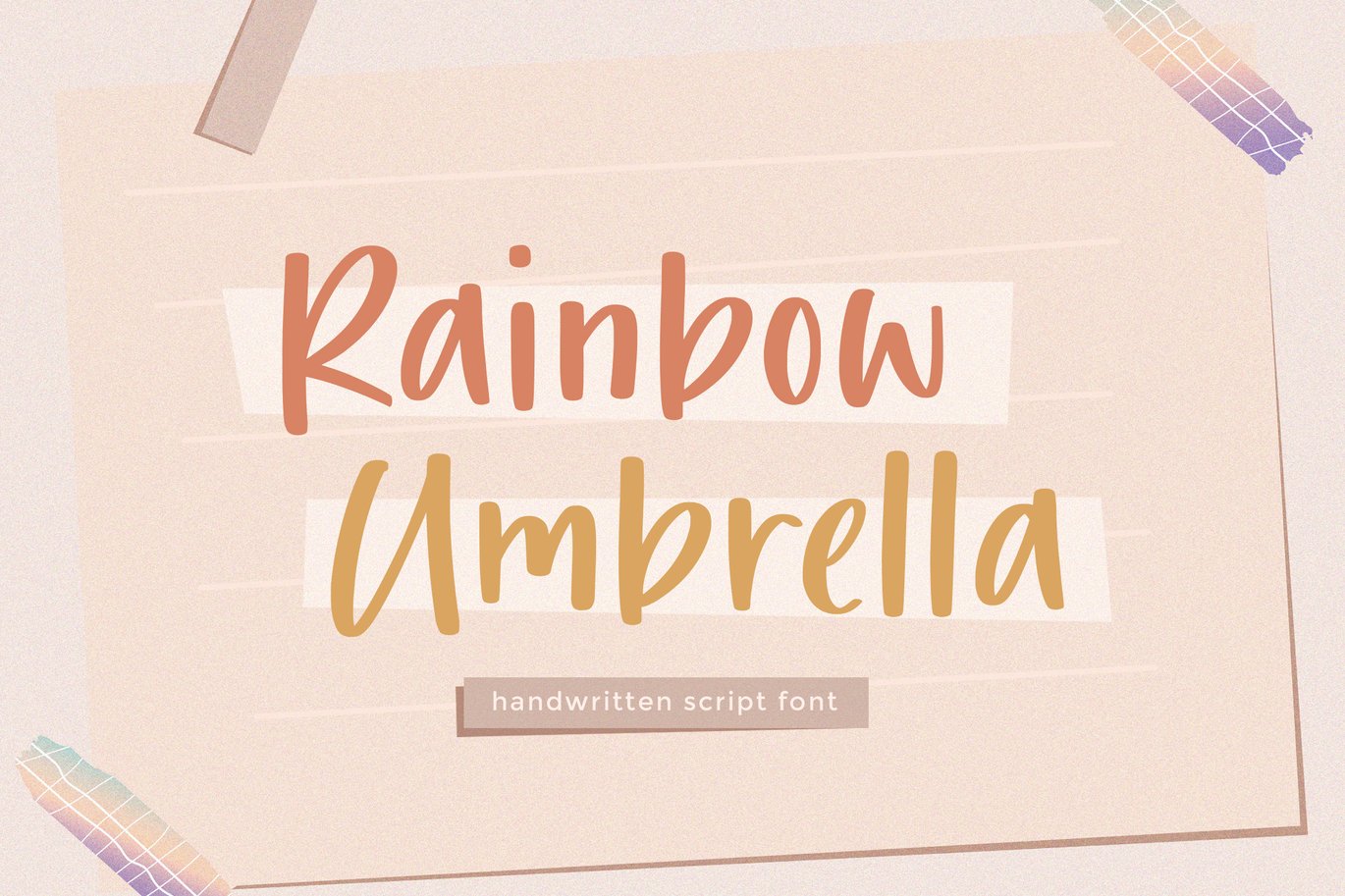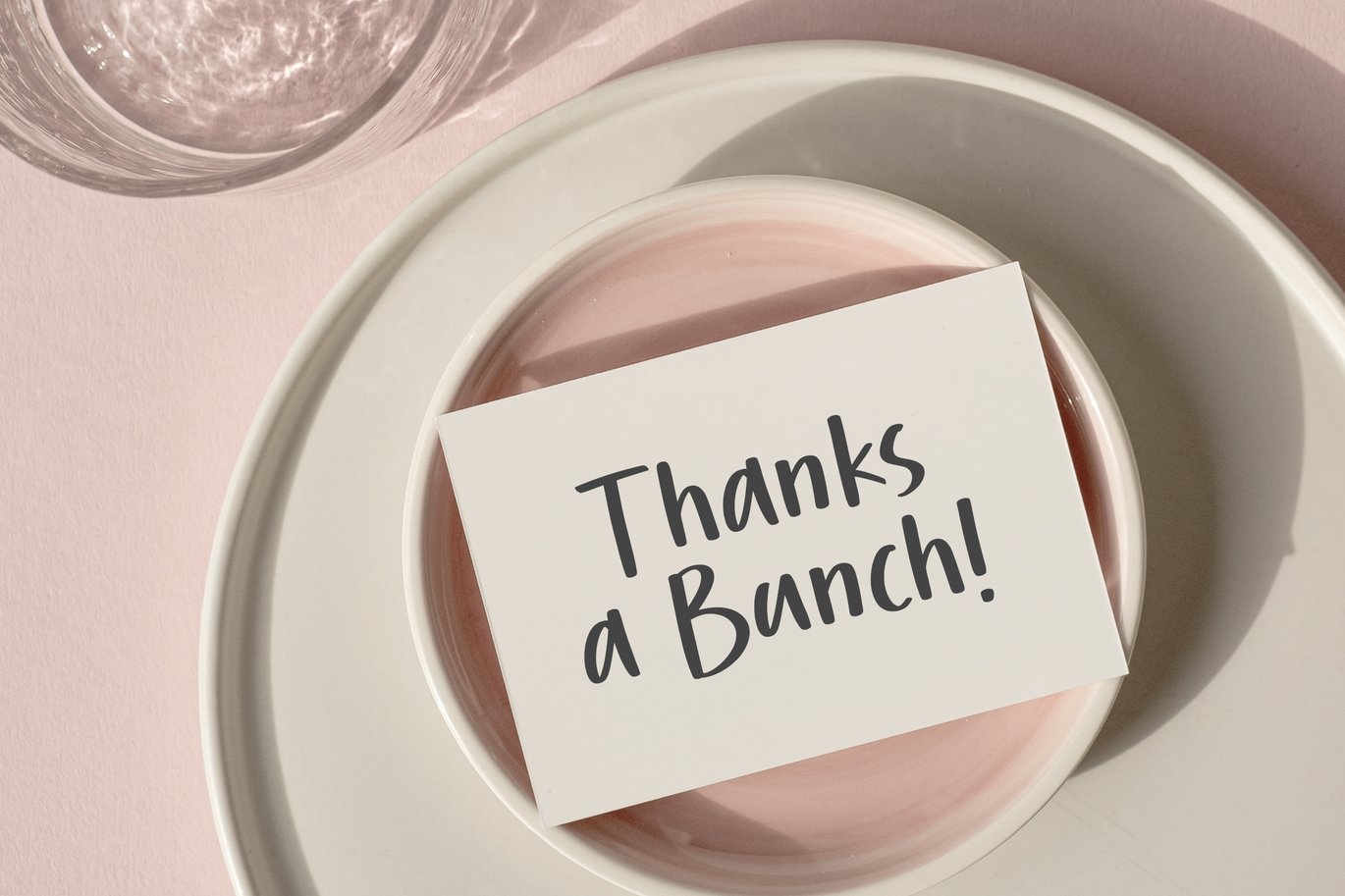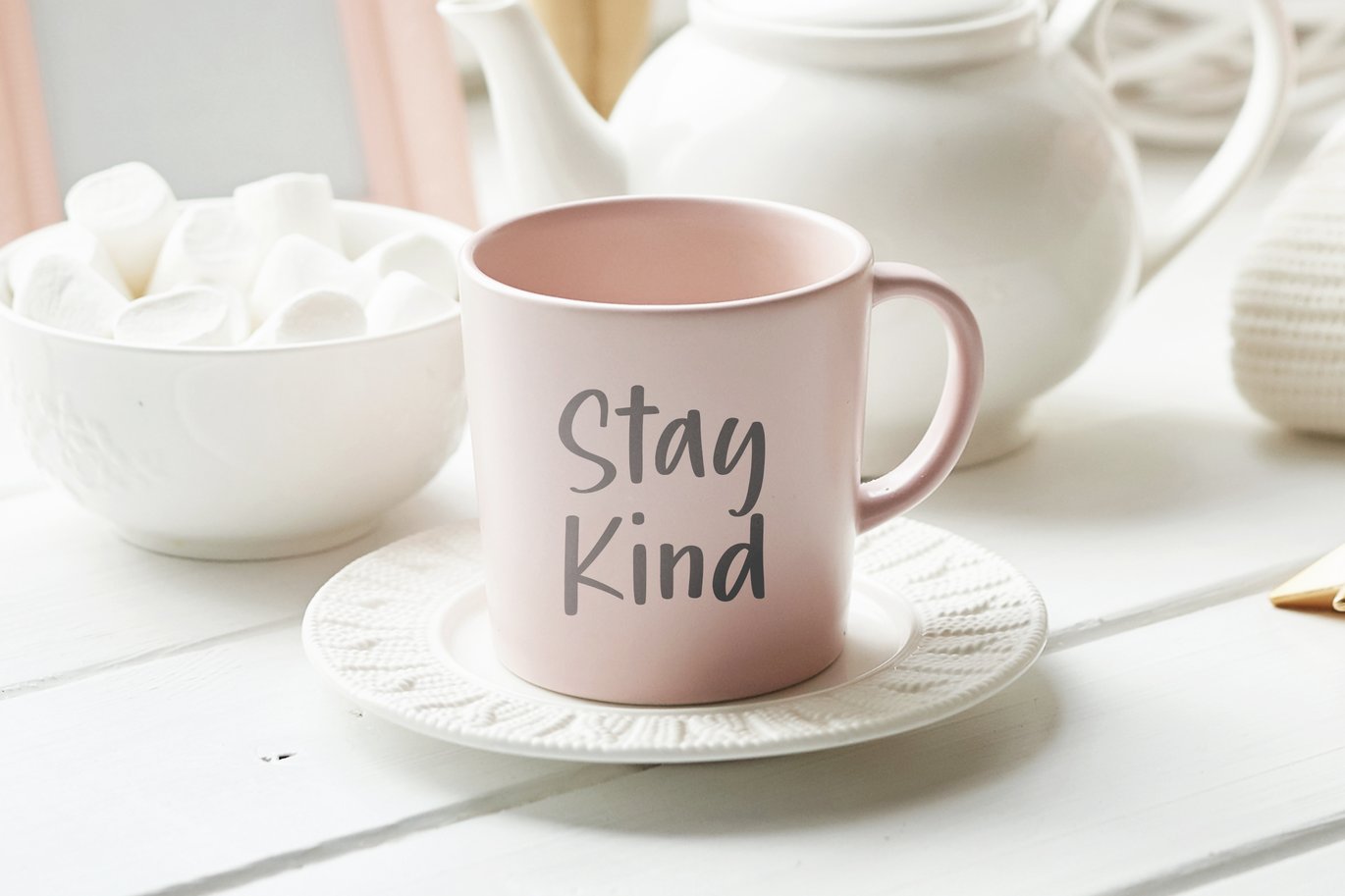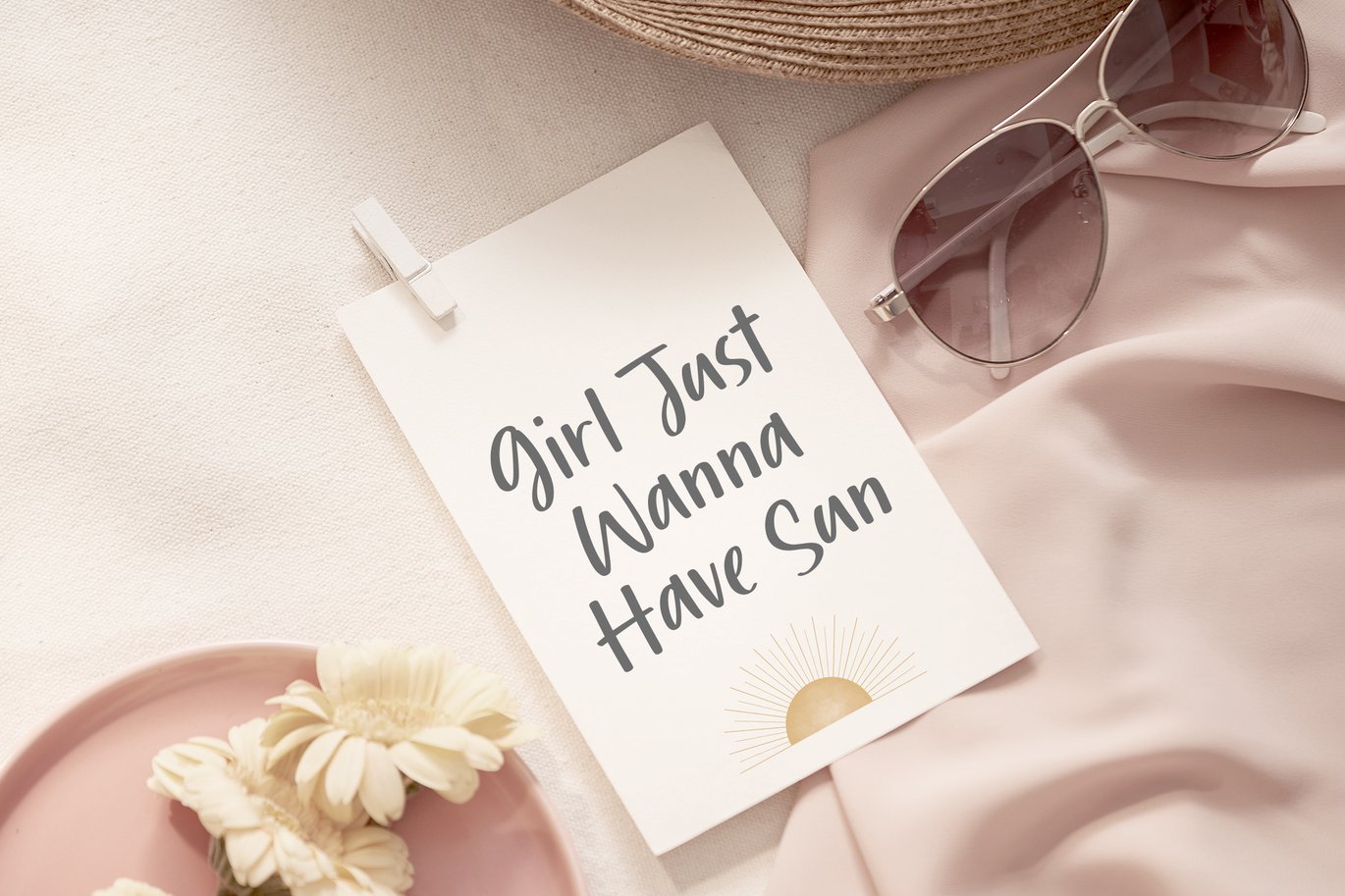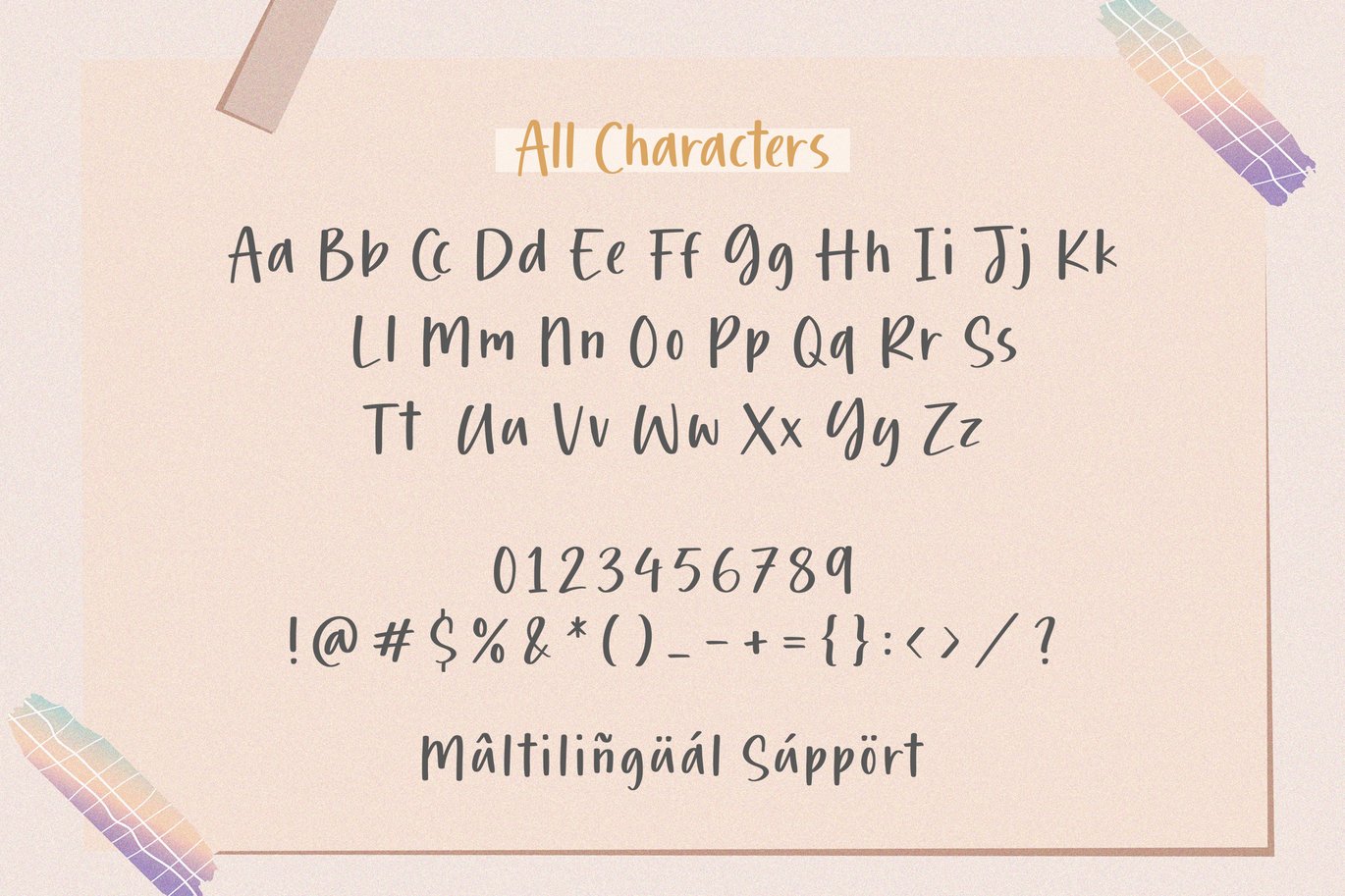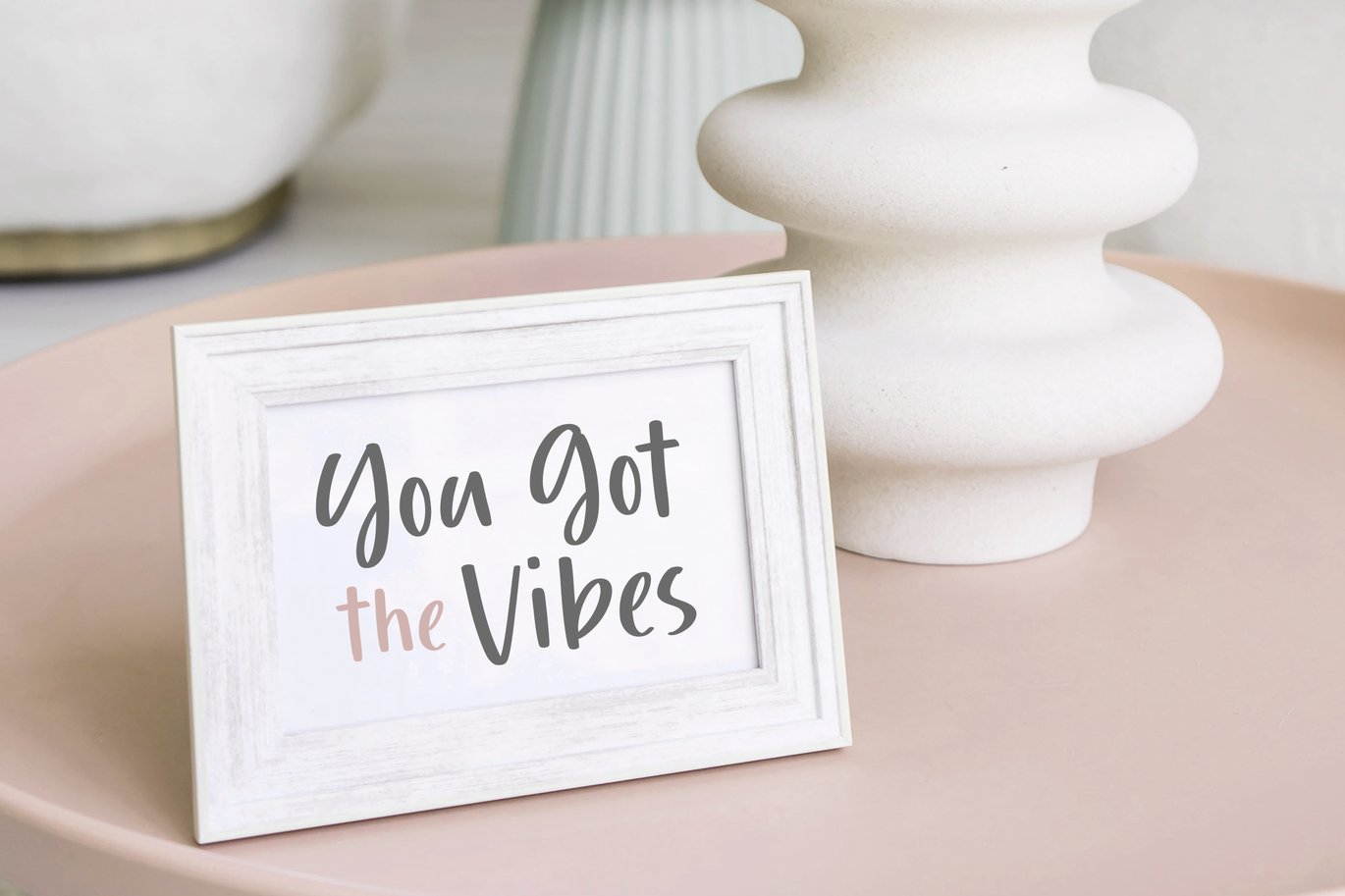
Rainbow Umbrella Handwritten Script Font TT
Proudly Present, Rainbow Umbrella
Diamond Smith A Handwritten Font , which was created with great care and specially created for you
Rainbow Umbrella is perfect for product packaging, branding project, megazine, social media, wedding, or just used to express words above the background.